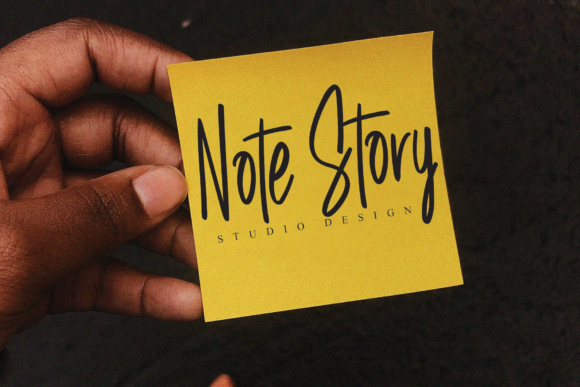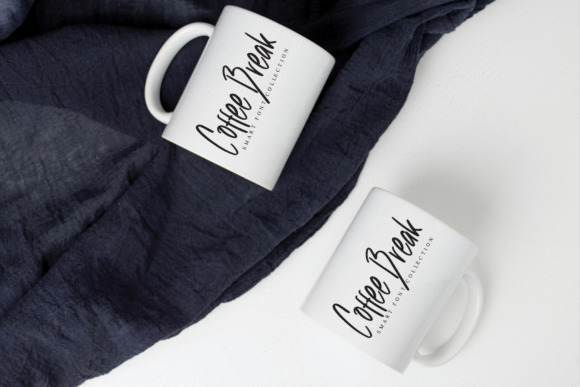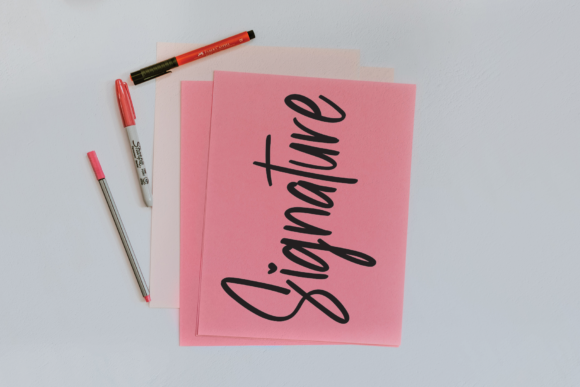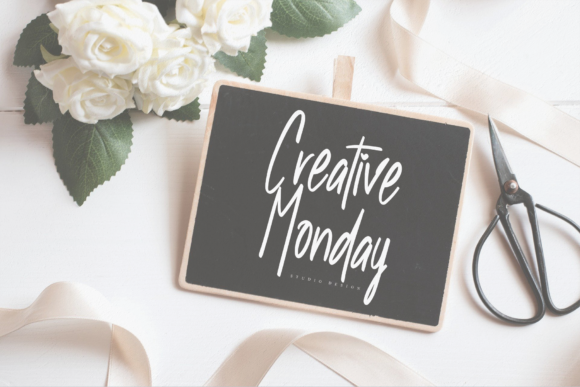
Introducing Attention Font: The Ultimate Choice for Modern Designs
Are you tired of using the same old fonts for your designs? Look no further! Attention Font is here to revolutionize the way you create. This relaxed, fashionable, and cool handwritten font is perfect for designers and crafters who want to add a touch of personality to their work. In this article, we’ll dive into the world of Attention Font and explore its endless possibilities.
What is Attention Font?
Attention Font is a unique and stylish handwritten font that exudes a sense of calmness and sophistication. Its relaxed vibe makes it perfect for designs that require a touch of elegance and refinement. Whether you’re working on a poster, flyer, or print, Attention Font is sure to make your design stand out from the crowd.
Key Features of Attention Font
- Handwritten style: Attention Font boasts a beautiful handwritten style that adds a personal touch to your designs.
- Relaxed and fashionable: This font’s relaxed vibe makes it perfect for designs that require a touch of elegance and refinement.
- Cool and modern: Attention Font’s modern design ensures that your work looks fresh and up-to-date.
- Versatile: This font can be used for a wide range of designs, from posters and flyers to prints and more.
Endless Possibilities with Attention Font
So, what can you create with Attention Font? The possibilities are endless! Here are a few ideas to get you started:
- Posters and flyers: Use Attention Font to create eye-catching posters and flyers that grab attention.
- Branding and logos: This font is perfect for creating unique and memorable brand identities.
- Print designs: From business cards to brochures, Attention Font is perfect for a wide range of print designs.
- Digital designs: Use this font to add a touch of personality to your digital designs, from social media graphics to website headers.
Why Choose Attention Font?
With so many fonts available, why choose Attention Font? Here are just a few reasons:
- Unique style: Attention Font’s handwritten style sets it apart from other fonts.
- Easy to read: This font is clear and easy to read, making it perfect for designs that require a lot of text.
- High-quality: Attention Font is a high-quality font that is designed to produce stunning results.
Tips for Using Attention Font
Here are a few tips for getting the most out of Attention Font:
- Experiment with different sizes: Attention Font looks great in a variety of sizes, from large headlines to smaller body text.
- Pair with other fonts: Try pairing Attention Font with other fonts to create a unique and interesting design.
- Use it sparingly: While Attention Font is a beautiful font, it’s best used sparingly to avoid overwhelming the design.
Attention Font is a stylish and versatile font that is perfect for designers and crafters who want to add a touch of personality to their work. With its relaxed, fashionable, and cool handwritten style, this font is sure to make your designs stand out from the crowd. Whether you’re working on a poster, flyer, or print, Attention Font is the ultimate choice for modern designs.
Get Ready to Make a Statement with Attention Font